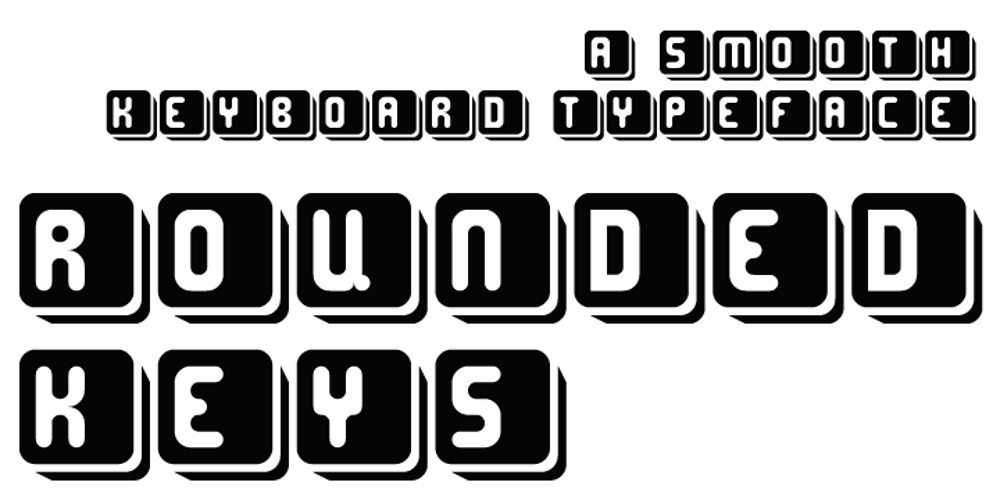
Rounded Keys
Rounded Keys font
Rounded Keys Font Family was designed by Wilson Thomas and published by Funk King. Rounded Keys contains 1 styles and family package options. Rounded Keys is a type font with a smooth, modern feel.